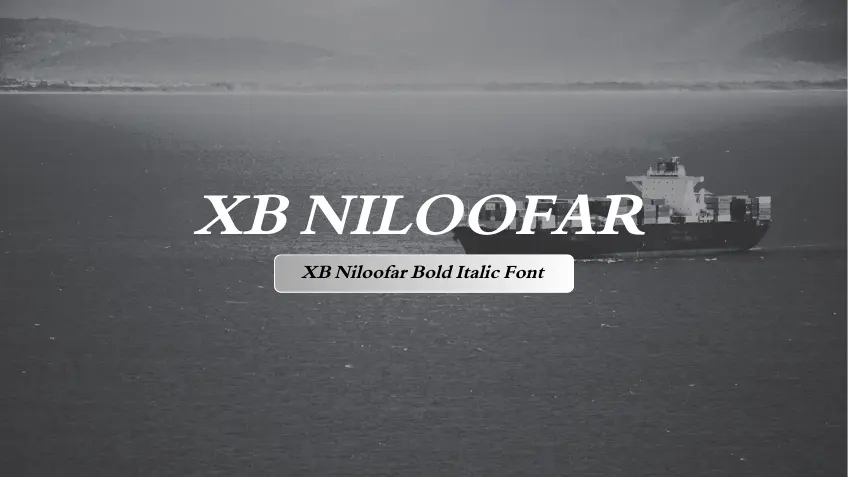
The font XB Niloofar Bold Italic, designed by IRMUG, falls under the Script category & XB Niloofar font family. Its smooth, flowing letterforms make it a versatile choice for projects that require both elegance and readability. XB Niloofar is particularly well-suited for Body Text, Technology Branding, Newspaper, Arabic Script, Bi-Lingual Content and Academic. With its balance of simplicity and decorative appeal, this font brings a polished touch to both personal and professional designs.